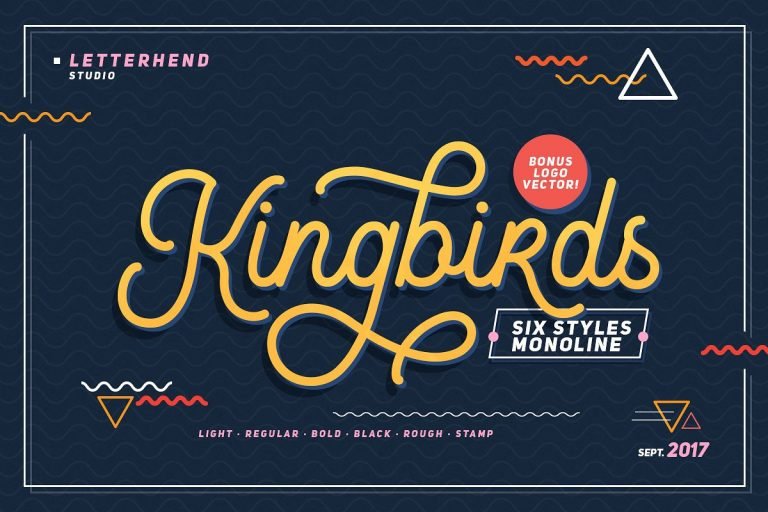
Kingbirds Monoline Script Font
A new font, with 6 styles monoline script. Introducing Kingbirds Font. It is designed by Letterhend. Playful theme? Elegant theme? Vintage theme? you name it. This typeface comes with many opentype features such as ligatures, stylistic set alternate, etc and also support multilingual. You also will get ready to use logo template that you can edit the text easily.